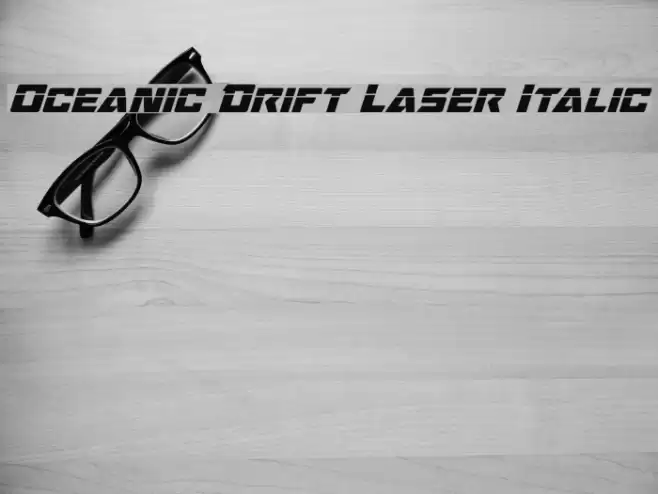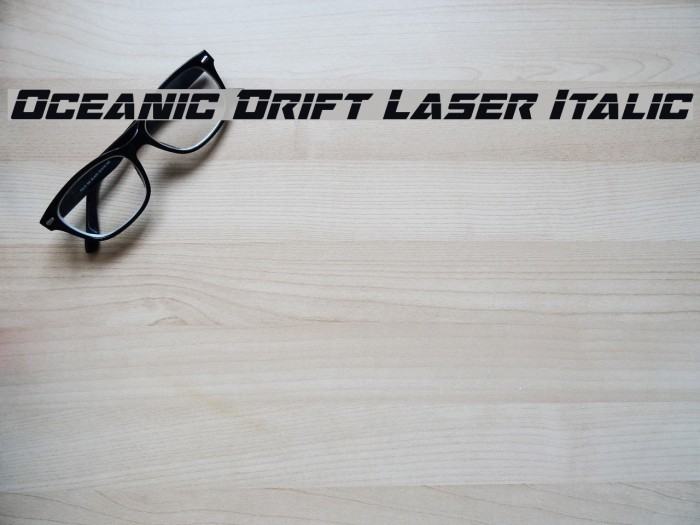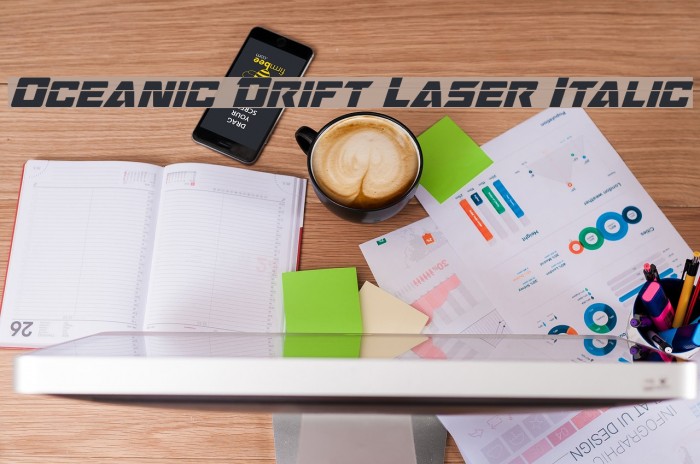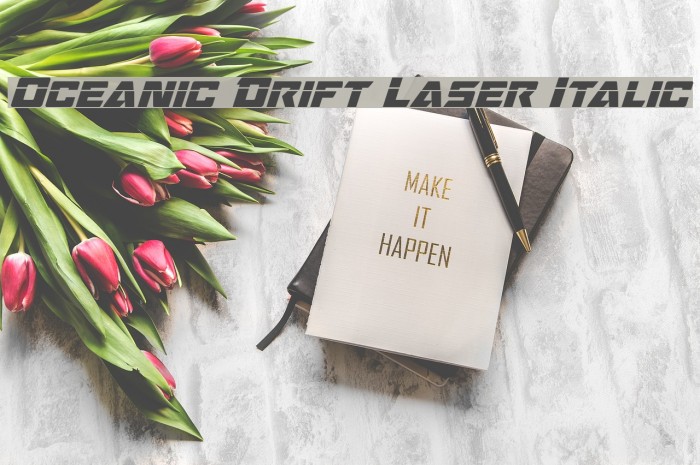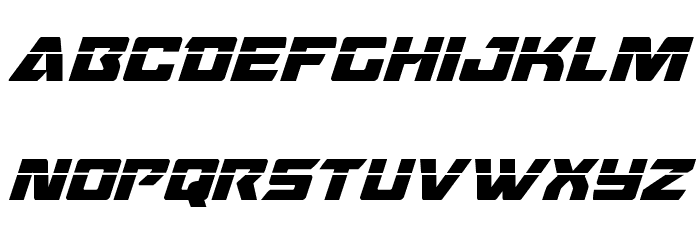
Oceanic Drift Laser Italic Font
Oceanic Drift Laser Italic Description
This font features a bold, futuristic design with a strong emphasis on angular lines and geometric shapes. The characters are italicized, giving a sense of motion and speed, reminiscent of high-tech or sci-fi themes. The strokes are thick and consistent, providing a robust and impactful appearance. The overall style is modern and dynamic, making it suitable for projects that require a bold statement. The character spacing is tight, enhancing the compact and cohesive look of the text.
A bold, futuristic italic font with angular lines and a dynamic style from Uncategorized fonts.
- Proposed Projects: Ideal for technology branding, sci-fi movie posters, video game titles, and sports team logos.
- Character Spacing: Tight